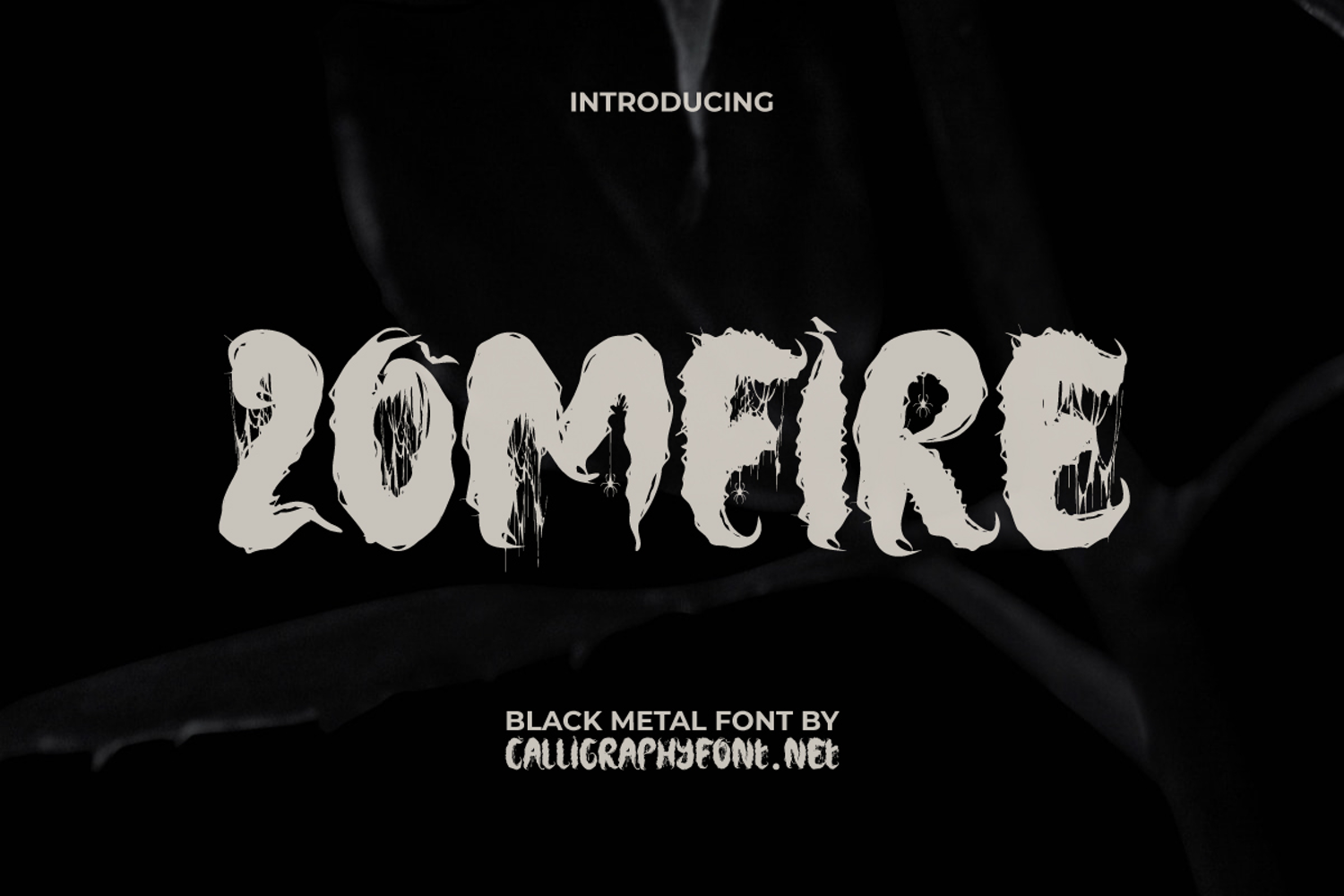
Zomfire
Zomfire Font is a black metal font with hideous liquid font and mesh effects. It is inspired by the incredible look of black metal writing. Perfect for advertisements, billboards, blogs, branding logo, brochure, business cards, cover albums, custom canvas bags, flyer, headline, label, mug stamp, posters, screen printed t-shirt, stationery, stickers, title, website, and more.
Zomfire Font is a heavy and death metal brush font with all caps. An exclusive typeface created with a touch of darkness that is here to complement your business, such as apparel, clothing, event organizer, graphic design, gym, handicraft, merchandise, metal band, movie, outdoor travel service, photography, printing, publishing, sportswear, and much more.